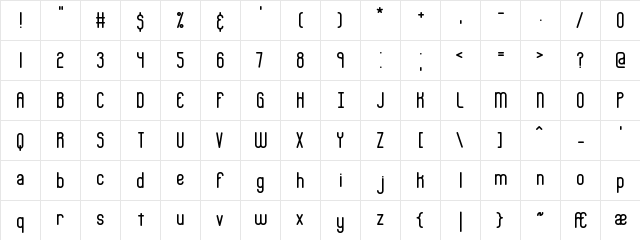
Bobcaygeon Plain BRK Normal
Design Context for Bobcaygeon Plain BRK Typeface
Bobcaygeon Plain BRK takes a measured approach to typography — its balanced proportions and neutral character make it a reliable workhorse for both digital and print work.